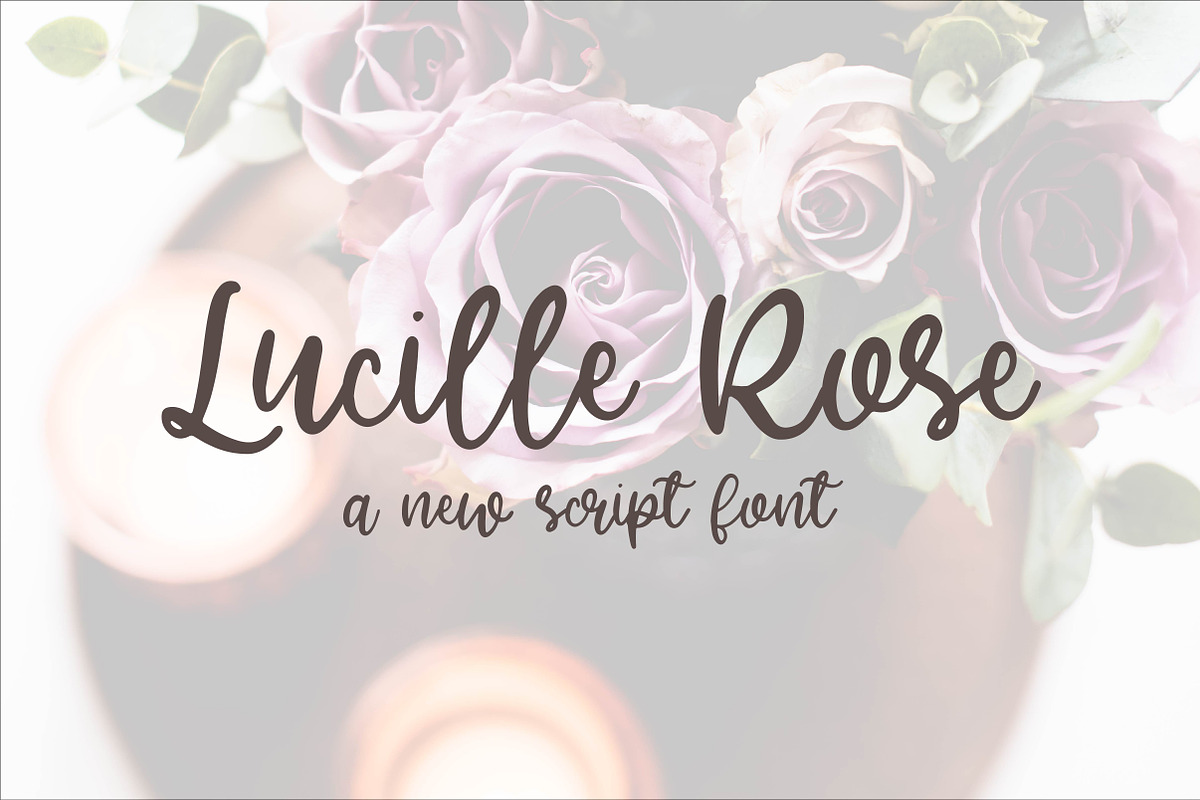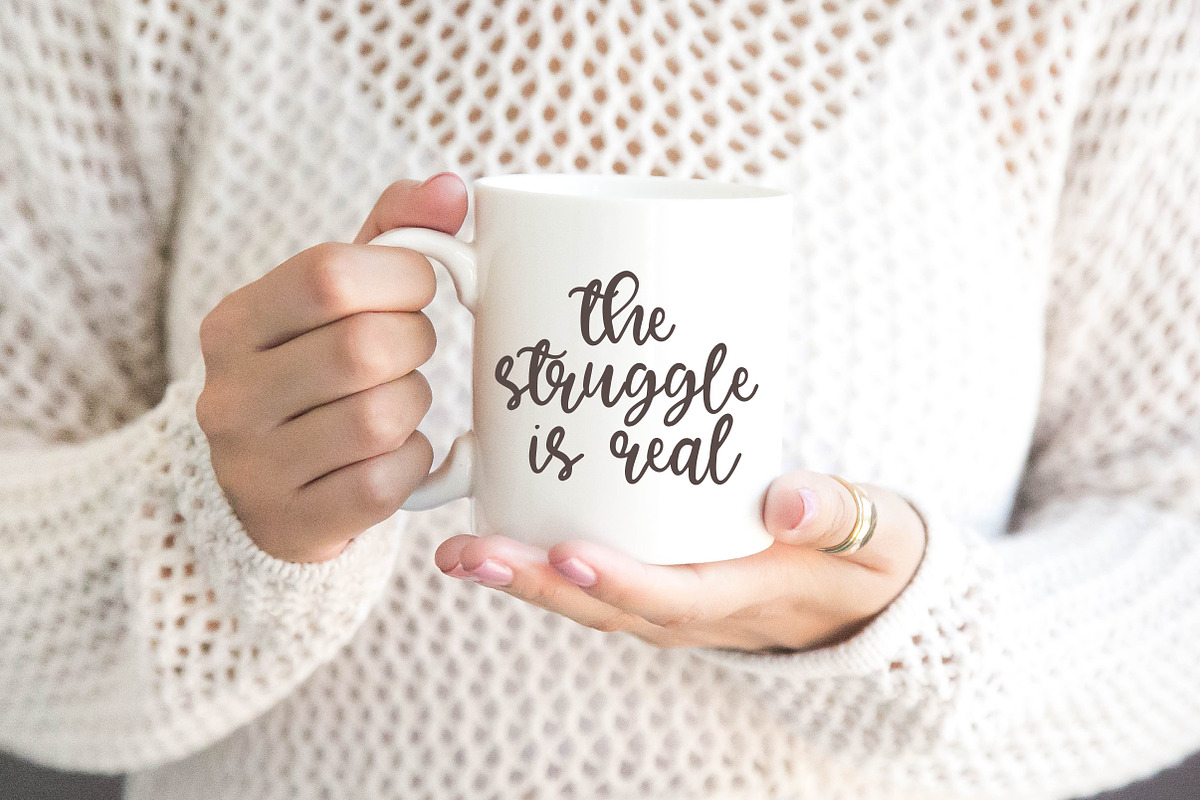
Lucille Rose - A Script Font
Lucille Rose is one pretty lady! Heavier script, great for using with your Silhouette or Circuit machine, branding, marketing materials & so much more!
- Includes upper, lower, numbers & punctuation.